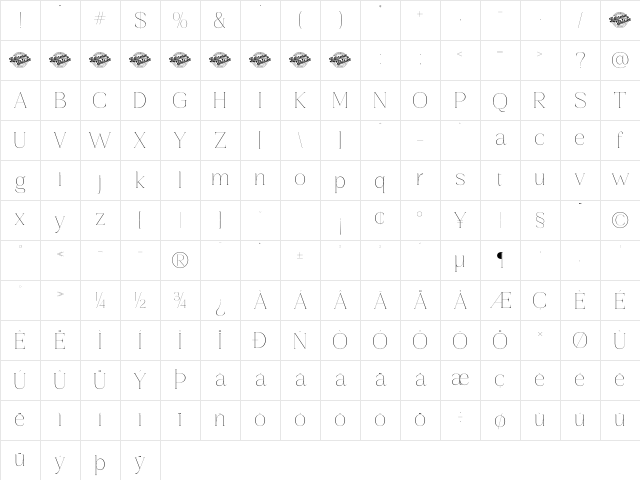
Gestiva DEMO VERSION Regular Free Font
Gestiva DEMO VERSION Regular
Foundry: Storytype Studio
Designer: Heru Utama Putra
Design Context for Gestiva DEMO VERSION
Gestiva DEMO VERSION is a composed and adaptable typeface that performs quietly and consistently across a wide range of design contexts.